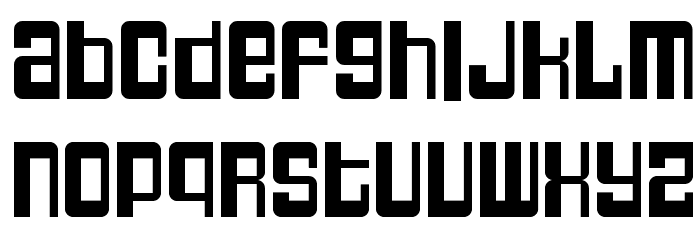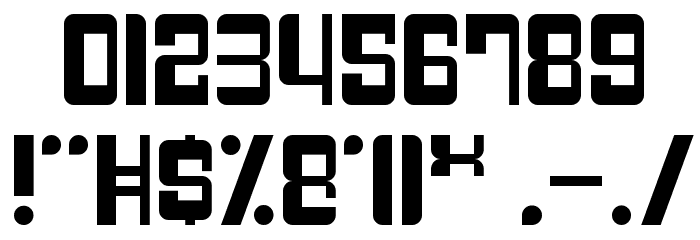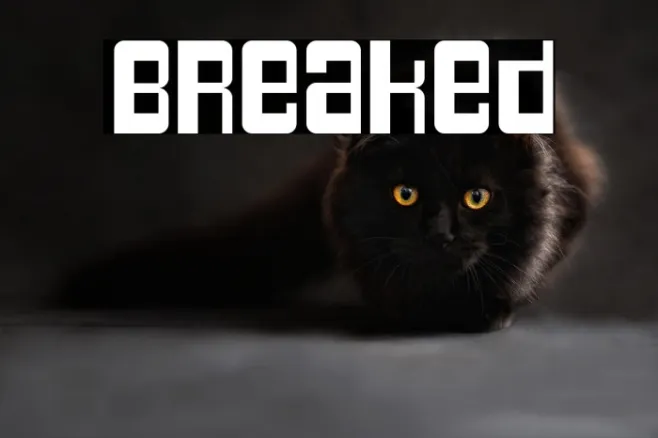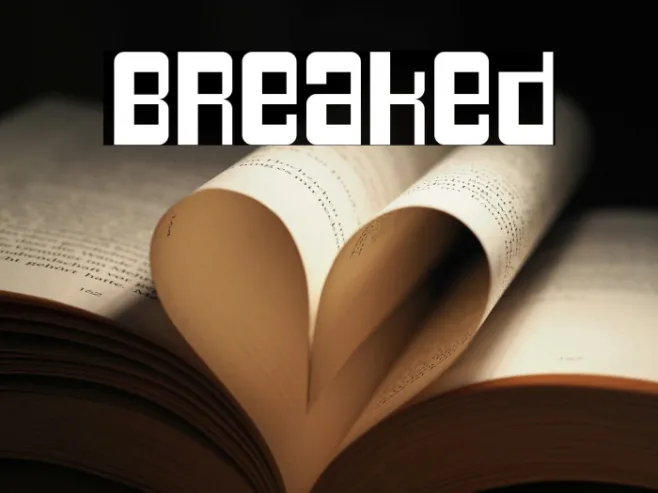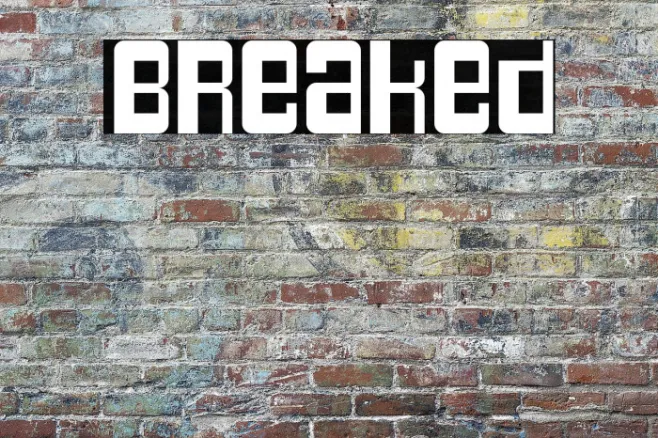
Breaked Font
This font features a bold and geometric design with a strong presence. Each character is constructed with thick, uniform strokes, creating a sense of solidity and stability. The characters are blocky and squared, with minimal curves, giving it a modern and industrial feel. The uppercase and lowercase letters maintain a consistent style, while the numerals and special characters are designed to match the overall aesthetic. The font's boldness and unique style make it stand out, suitable for projects that require a strong visual impact.
- Proposed Projects: Ideal for branding, posters, headlines, and any design requiring a strong, impactful font.